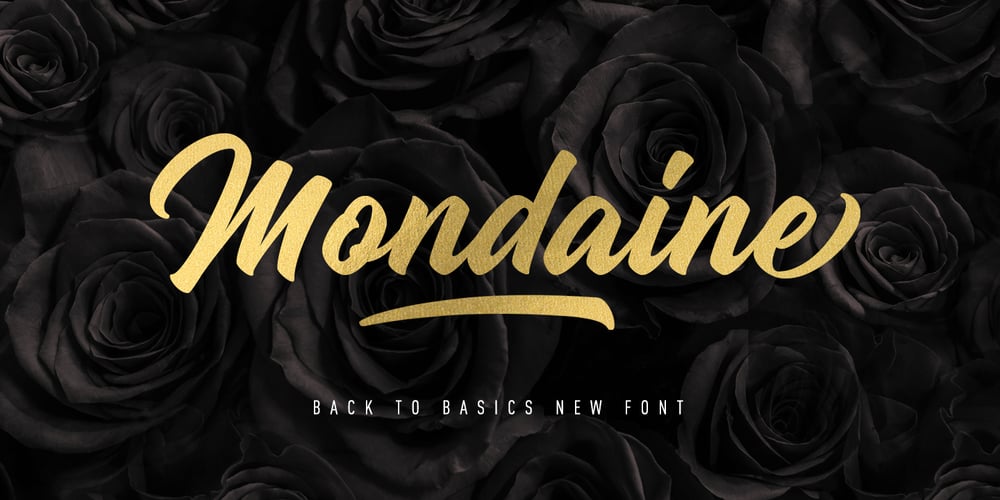
Mondaine Font Family was designed by Clément Nicolle and published by StereoType Fonts. Mondaine contains 1 styles and family package options. Mondaine is a clean script font with a touch of lettering style.Have fun with a ton of special endings and contextual ligatures!